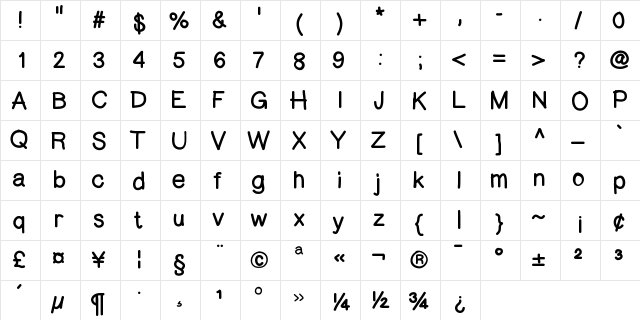
fingerlinger Medium Free Font
fingerlinger Medium
Design Context for fingerlinger
fingerlinger is a composed and adaptable typeface that performs quietly and consistently across a wide range of design contexts.